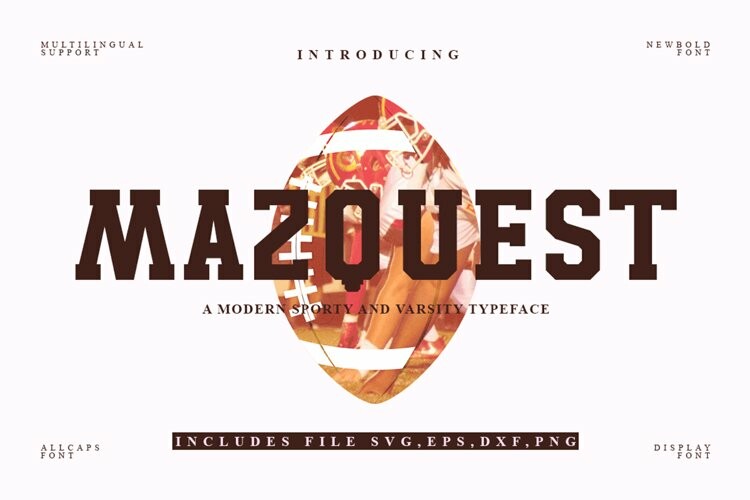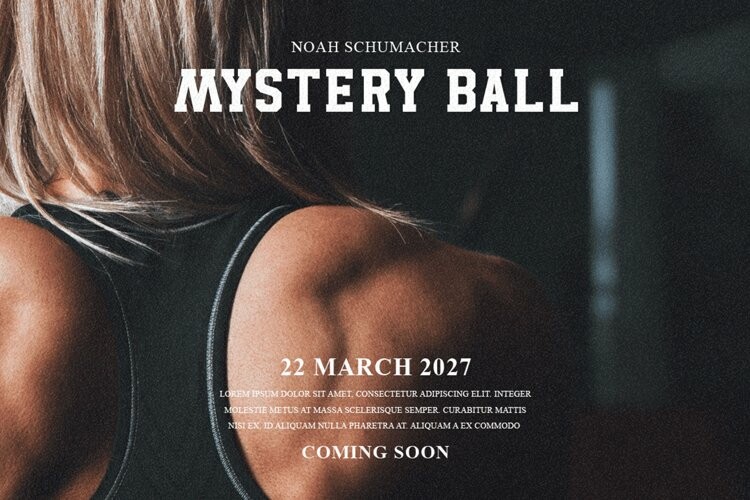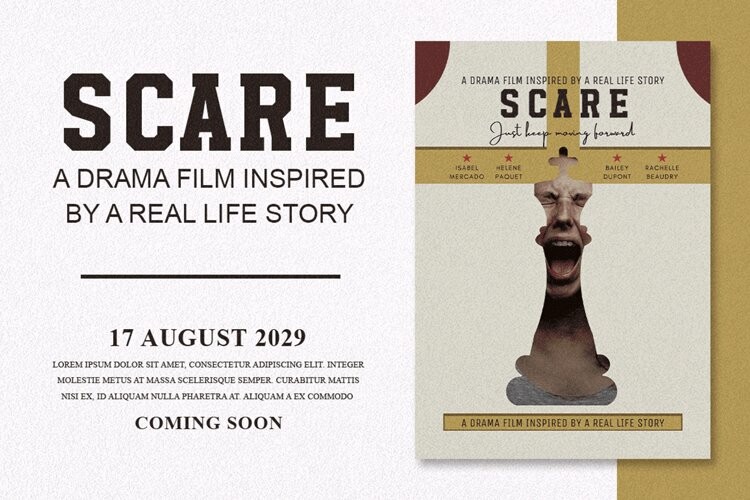
Mazquest Font
Mazquest FontMazquest font is a modern sports font. This font covers several languages such as European and Asian. This font is suitable for your projects that have something to do with sports themes. I made this Mazquest font inspired by the writing on sports shirts on the back of which there are writings such as the name of the shirt user and a number. Show your love for your project !